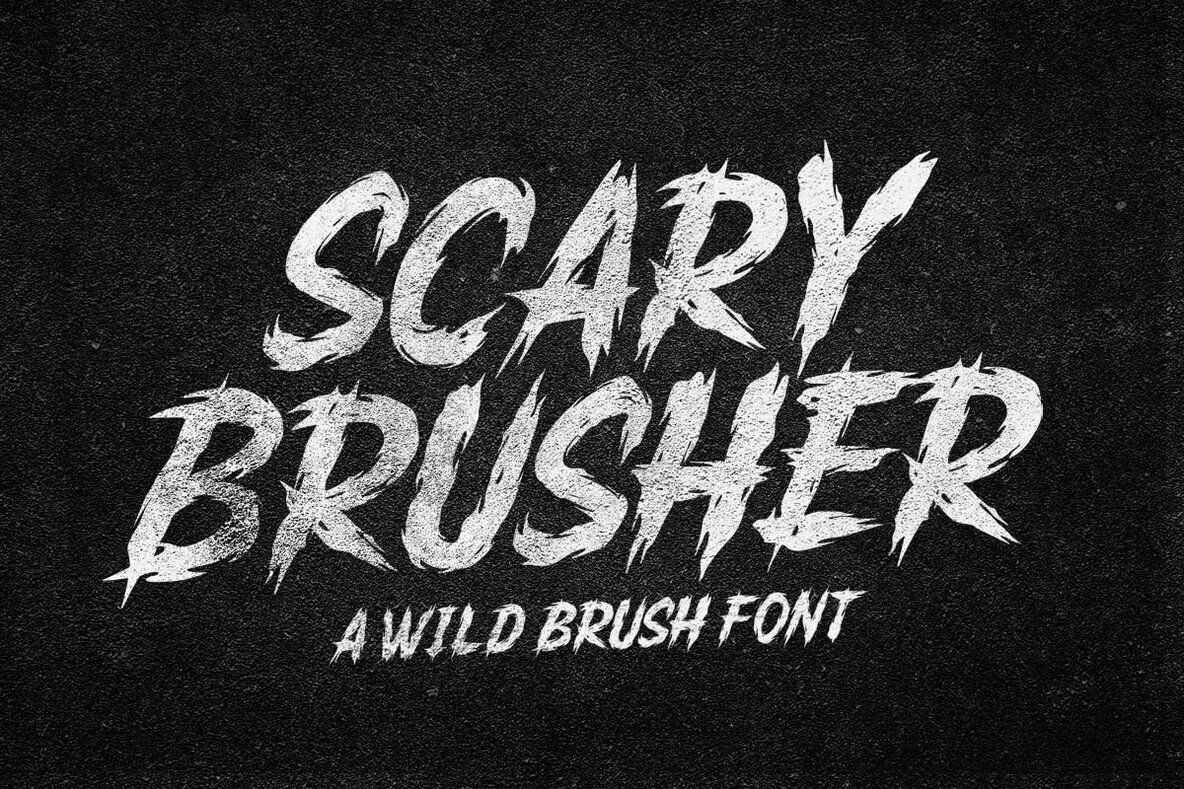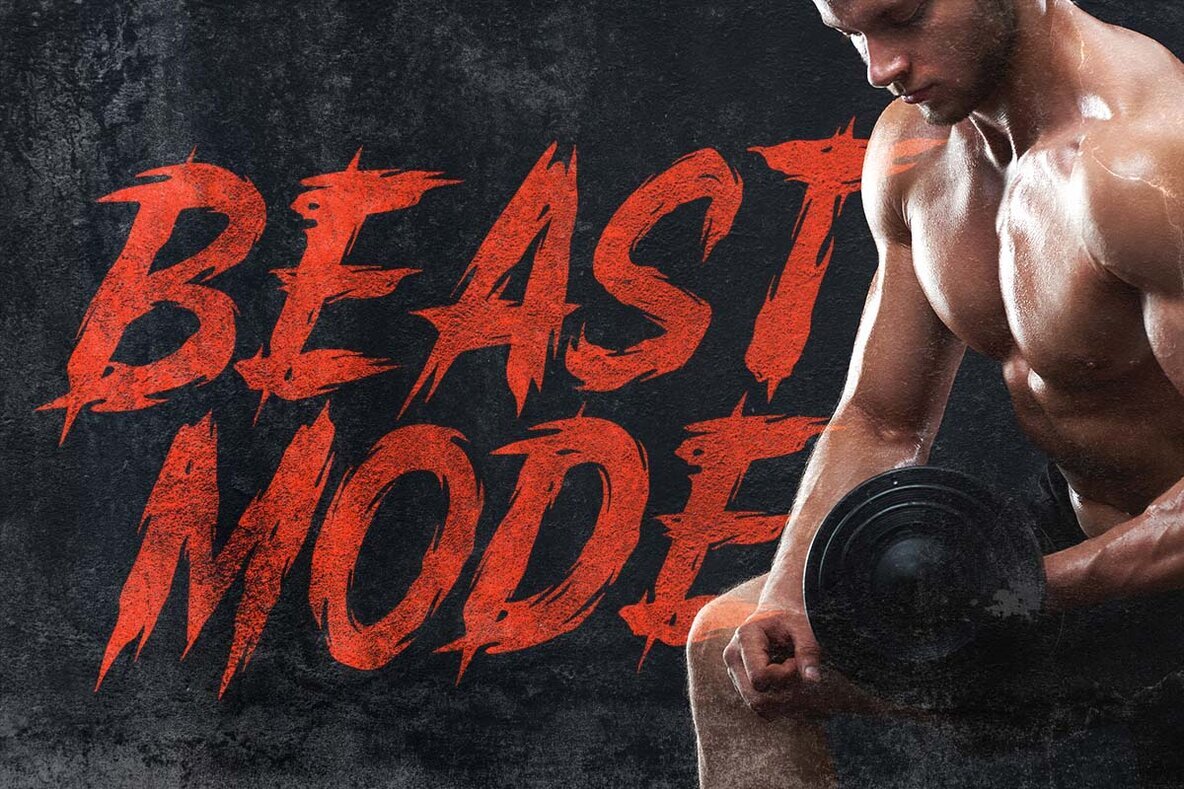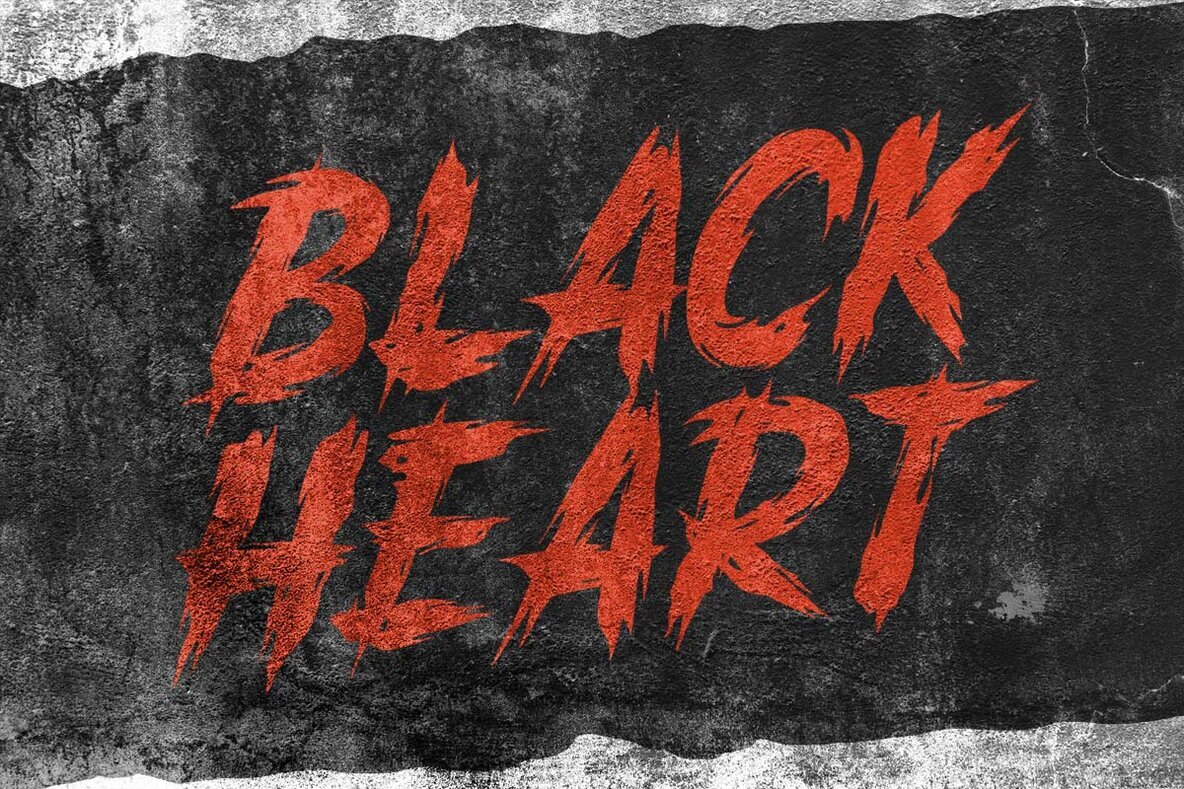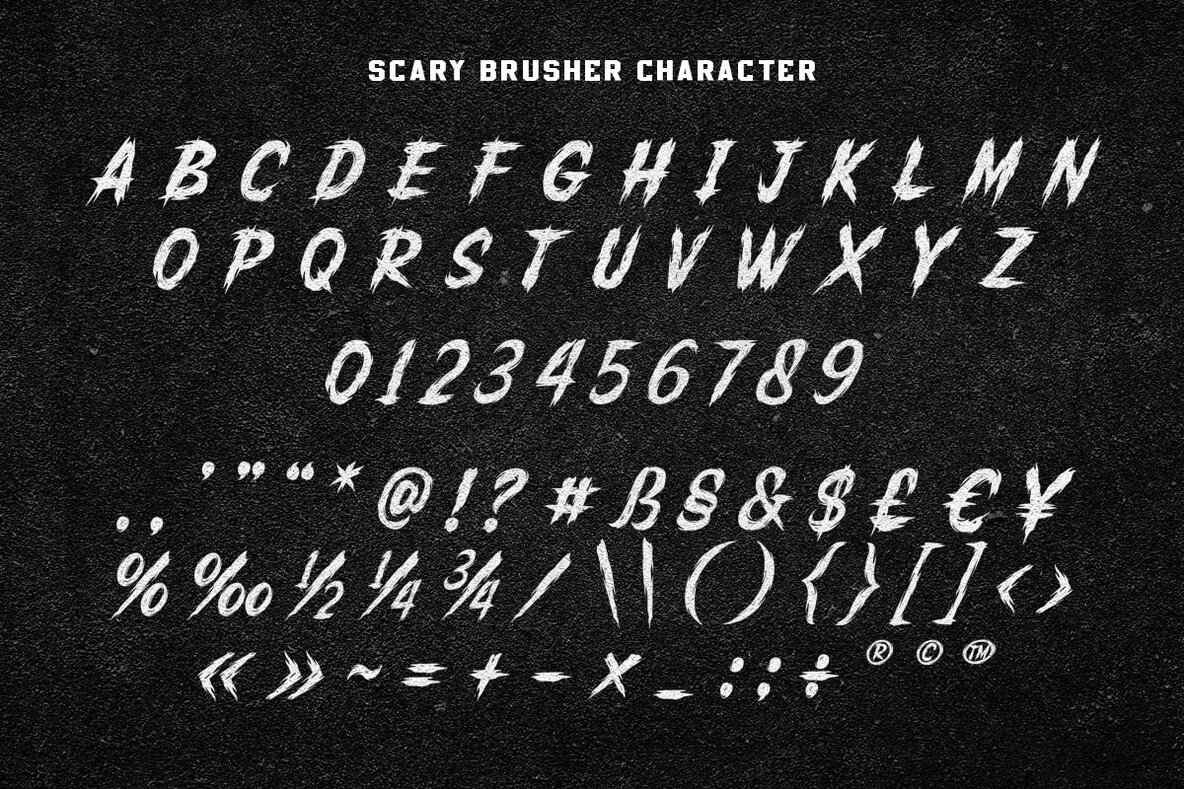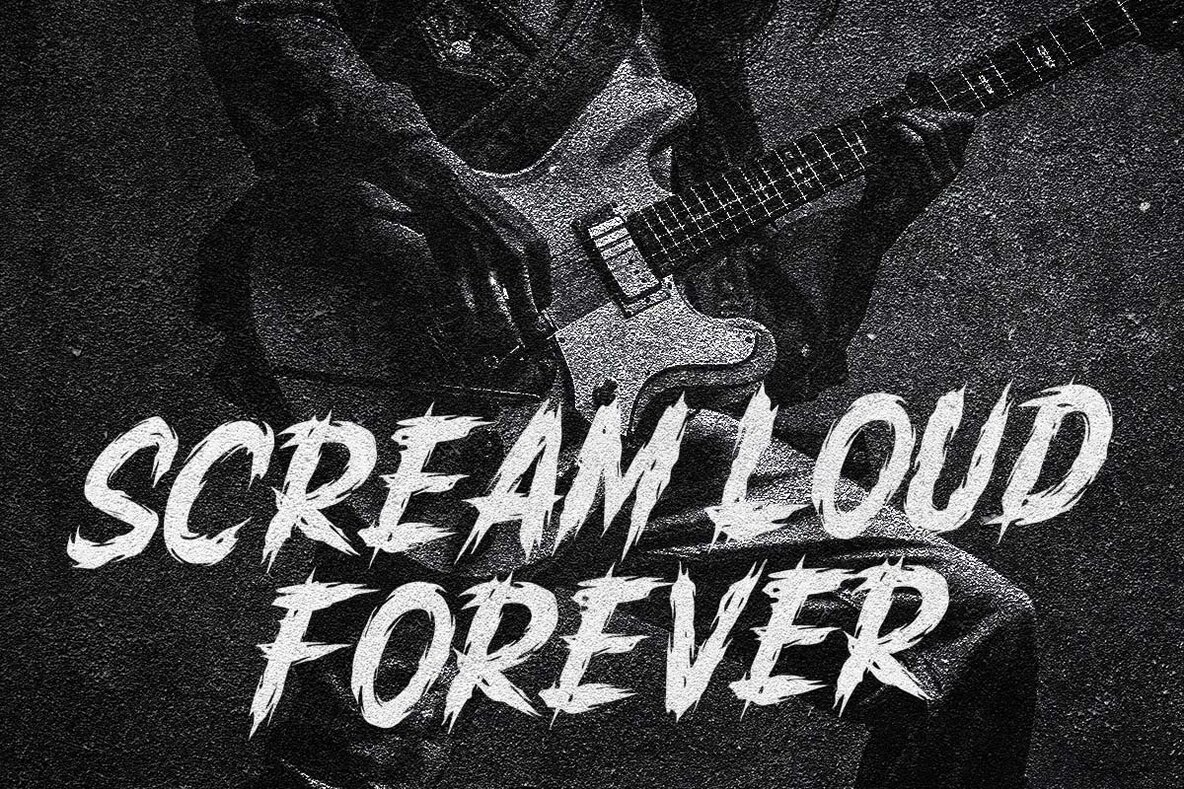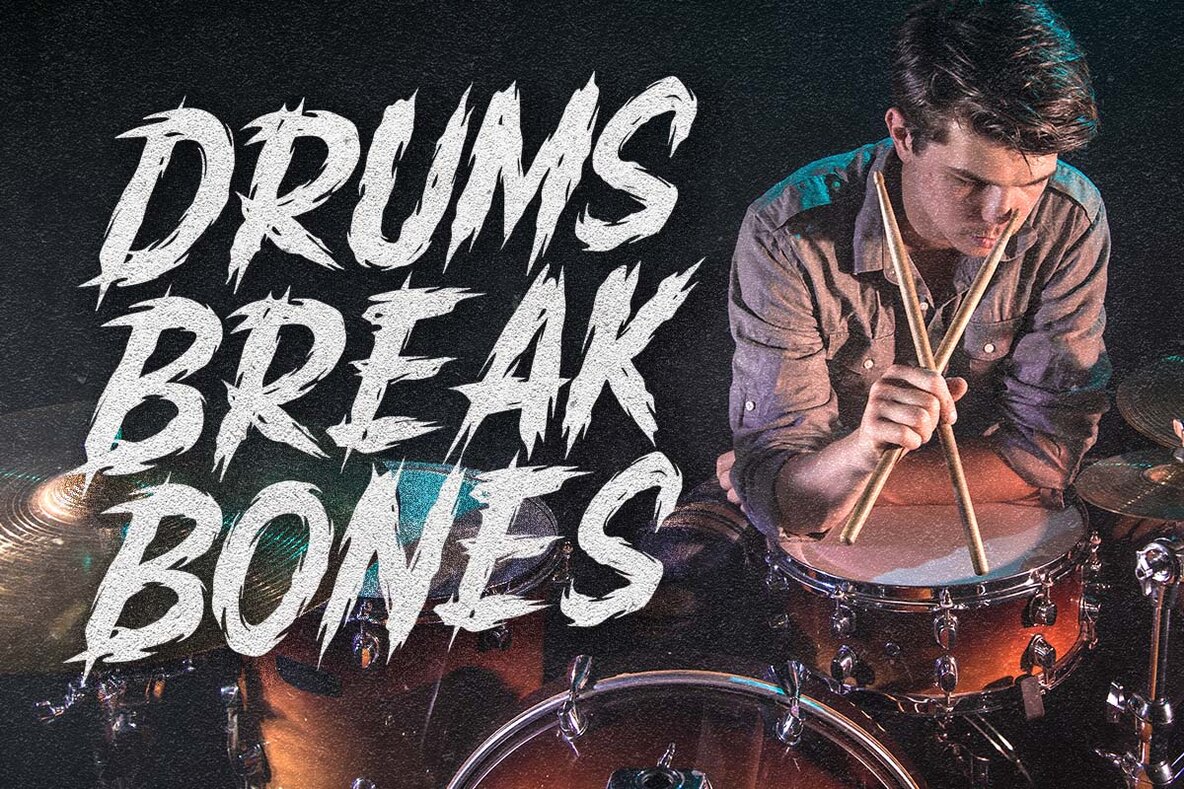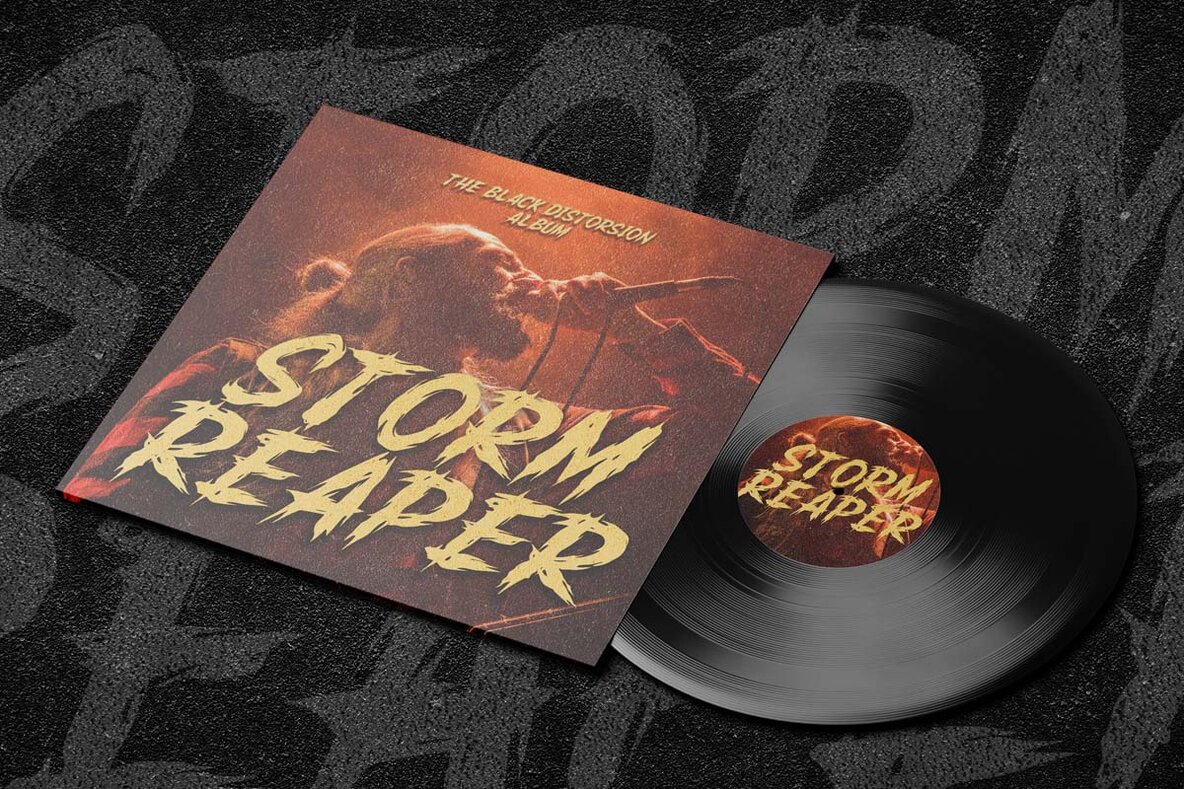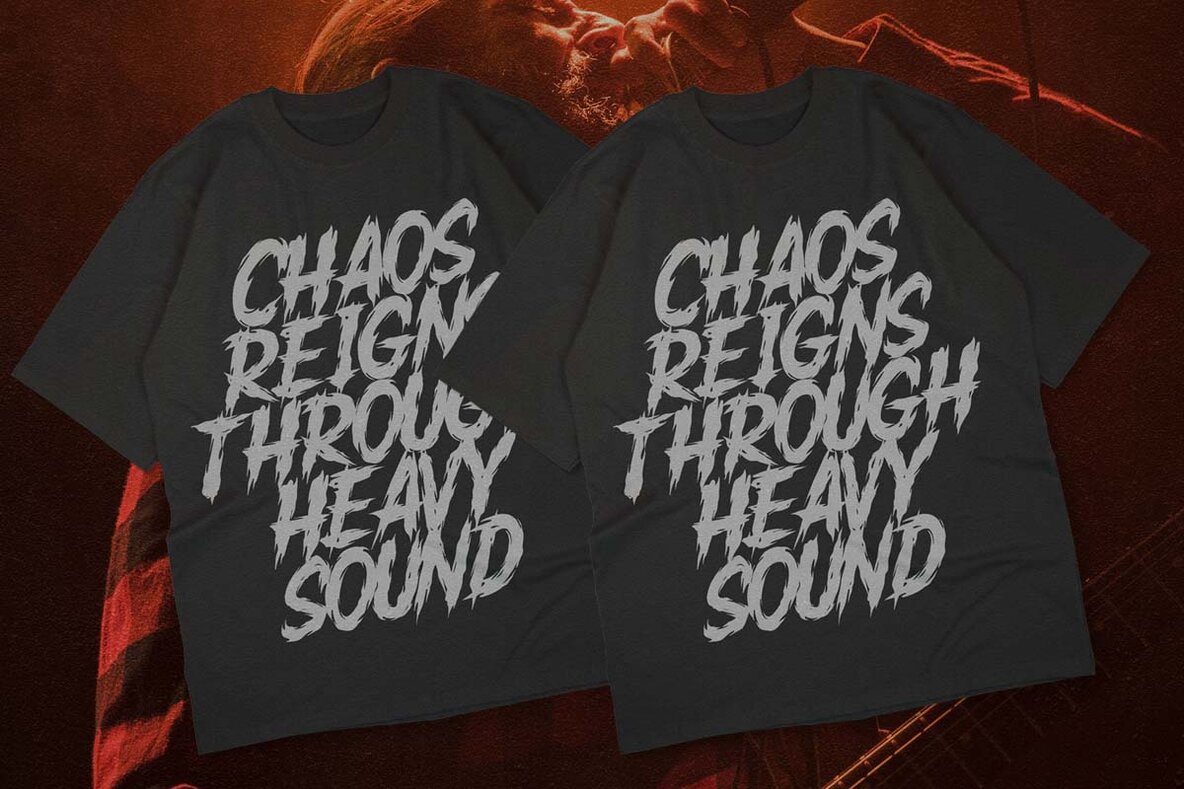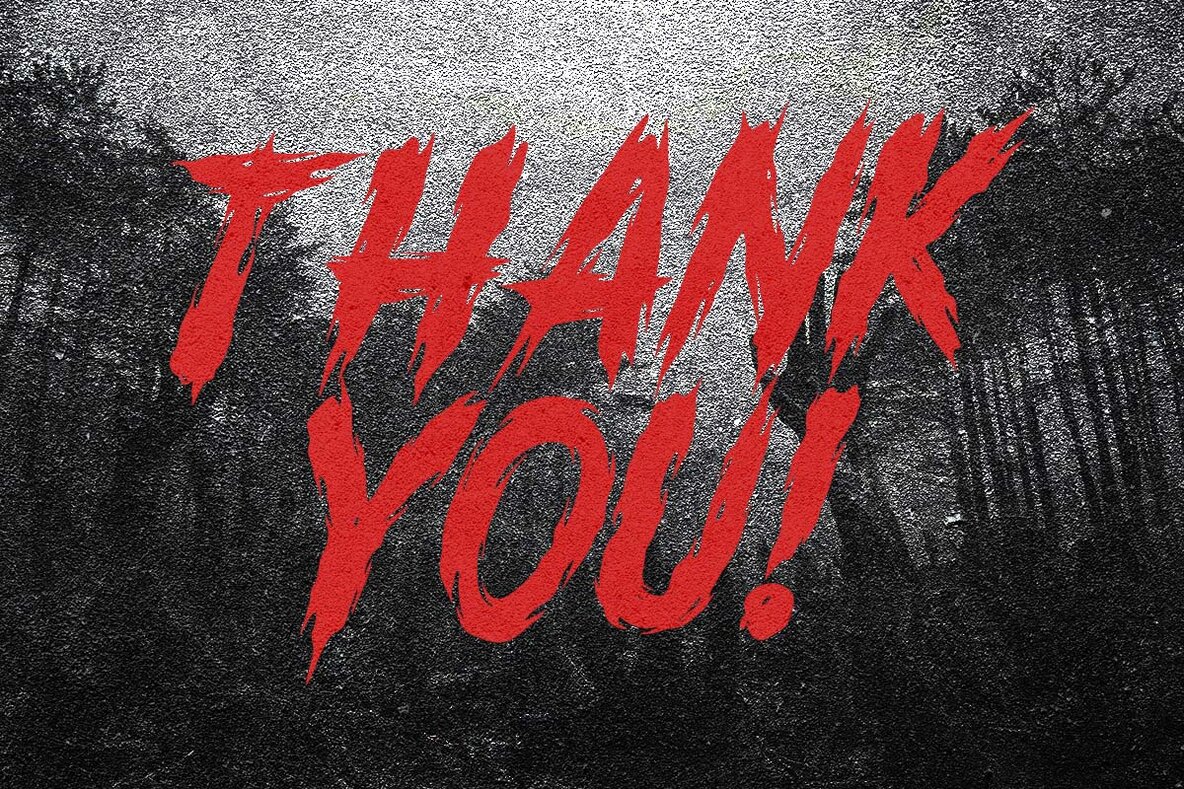
Scary Brusher Font
Scary Brusher Regular
Introducing Scary Brusher, a dynamic wild brush font by Blankids Studio. This bold, retro-inspired typeface is perfect for professional branding projects, including logotypes, watermarks, posters, promotions, and product packaging. Each character features an expressive brush design, adding a playful touch to your creative work. Scary Brusher comes in a complete set of uppercase and lowercase letters, numerals, and punctuation. It is compatible with various graphic software programs like Canva, Adobe Illustrator, Adobe Photoshop, Adobe InDesign, and Corel Draw, thanks to its OpenType feature support. Explore the previews for inspirational ways to use this versatile font. Happy designing!Scary Brusher: Wild Brush Font for Bold Designs